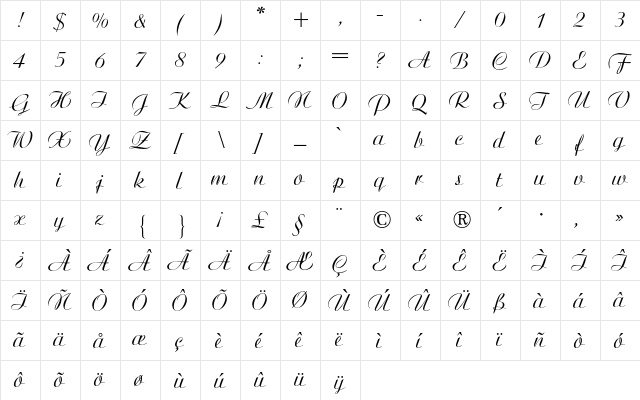
Ariston BQ Regular
Design Context for Ariston BQ Typeface
Ariston BQ is a composed and adaptable typeface that performs quietly and consistently across a wide range of design contexts.